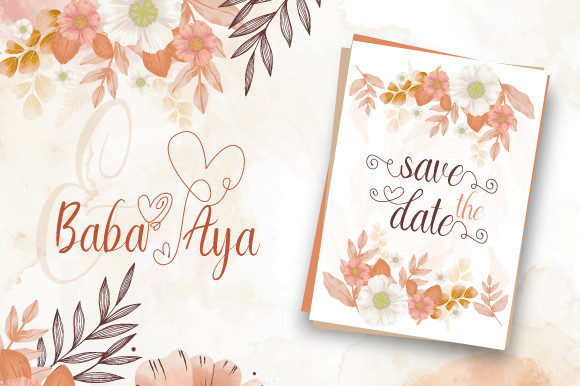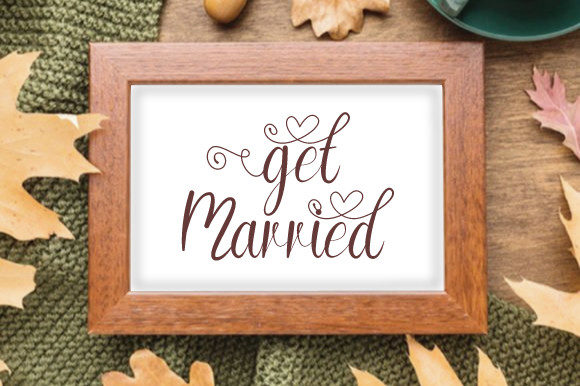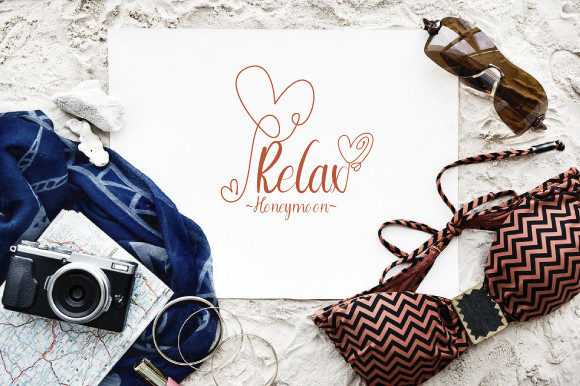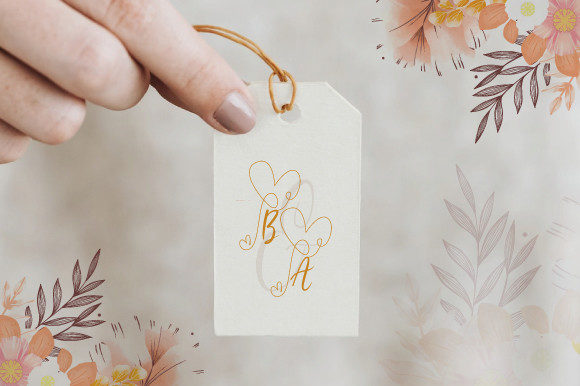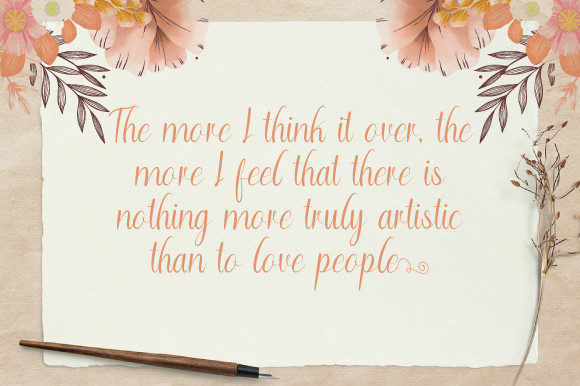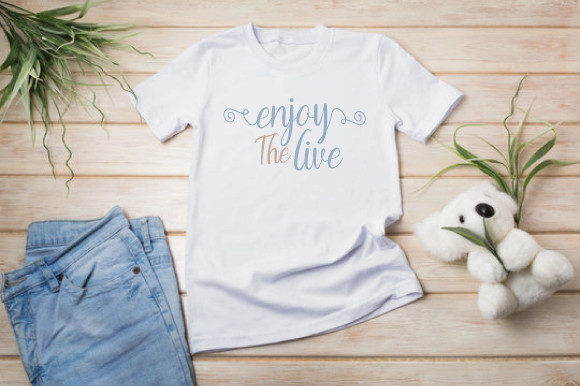
Introduction to Rajbauti Font
Have you ever stared at a blank canvas, wondering where to start on your next creative project? For designers, that moment of blankness can be daunting. But what if you had the perfect tool to spark your imagination? Enter the elegant Rajbauti Font, a beautiful and delicate script font that’s about to become your new design BFF.
This high-quality design resource is a treasure trove of possibilities, from logos and branding to invitations and stationery. With its classy look and transparent background, Rajbauti Font is the perfect addition to any creative project. Plus, its PUA encoding makes it easy to access all glyphs and swashes, giving you complete control over your design.
Whether you’re working on a wedding design or a social media post, Rajbauti Font is the perfect way to add a touch of sophistication and elegance. And the best part? It’s available for free download, making it an invaluable resource for designers of all levels.
Key Features of Rajbauti Font
- Rajbauti Font is a high-quality design resource ideal for creative projects requiring unique typography.
- This font features a transparent background, making it versatile for various design applications.
- Rajbauti Font is designed to be highly legible, with a clear and crisp appearance at resolutions up to 300 DPI.
- This font is perfect for designers looking for a unique and creative element to enhance their designs, with a size range suitable for both large and small-scale projects.
- Rajbauti Font is a valuable addition to any design resource library, offering a high-quality and customizable typography solution.
Honest Review: Rajbauti Font
As a designer, I’m always on the lookout for unique and high-quality fonts to elevate my creative projects. The Rajbauti Font caught my attention, and I was excited to try it out.
- Unique design: The Rajbauti Font has a distinctive look that sets it apart from other fonts in its category.
- High-quality glyphs: The font’s glyphs are crisp and clear, making it perfect for use in digital design projects.
- Transparent background: The font’s transparent background makes it easy to use in designs where a solid color is required.
- Limited language support: The Rajbauti Font currently only supports a limited number of languages, which may be a drawback for designers working on international projects.
- No bold or italic variants: While the font is available in regular weight, it would be great to have bold and italic variants for added versatility.
Overall, the Rajbauti Font is a solid addition to any designer’s toolkit. Its unique design and high-quality glyphs make it perfect for creative projects, and the free download option is a major plus. However, its limitations in terms of language support and weight variants may hold it back from being a top-tier font choice.
Tips for Getting the Most Out of Rajbauti Font
Use the Rajbauti Font on a high-quality transparent background to create a unique and eye-catching design. Experiment with different font sizes and styles to add depth and visual interest to your design. You can also use the font in combination with other design elements to create a cohesive and professional look.
The Rajbauti Font is a versatile design resource that can be used in a variety of creative projects, including logos, brochures, business cards, and more. Its unique and elegant design makes it perfect for use in high-end branding and marketing materials.